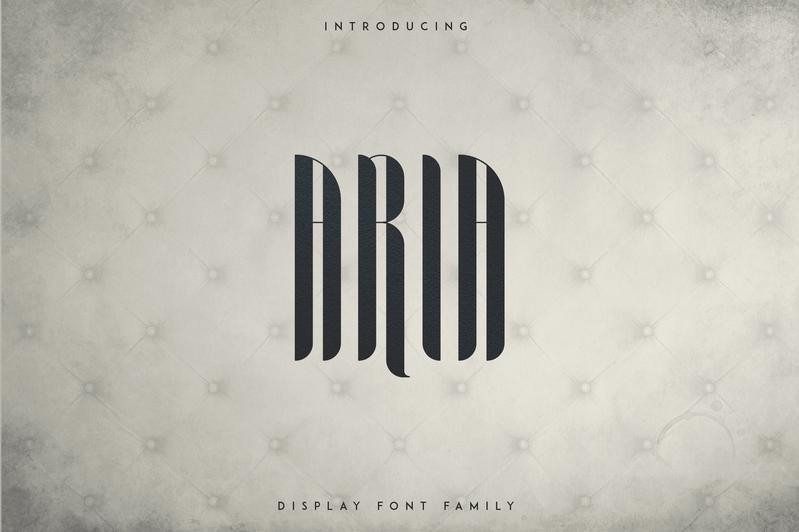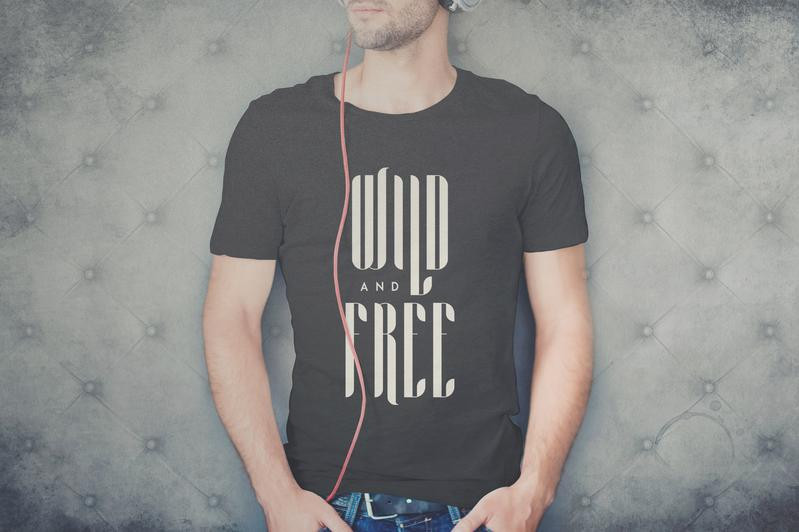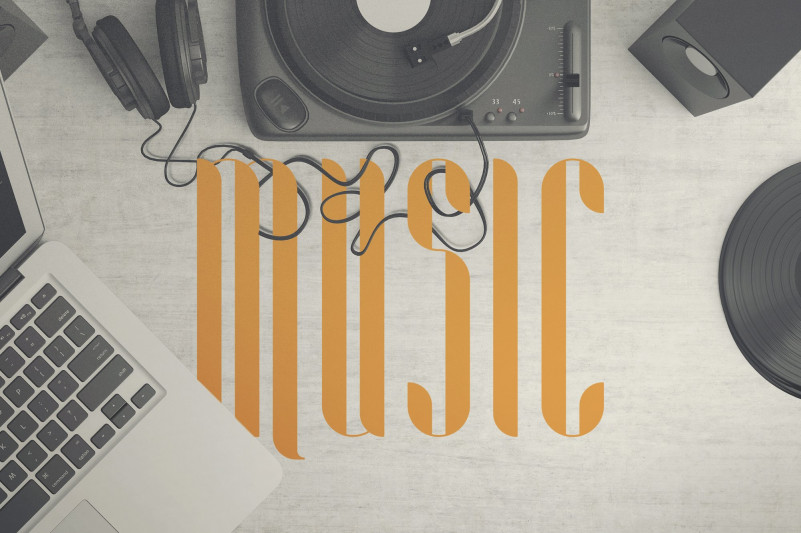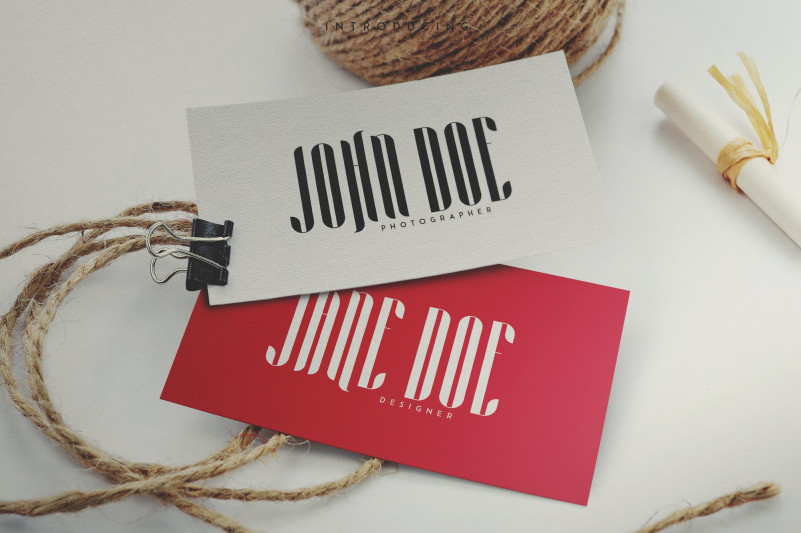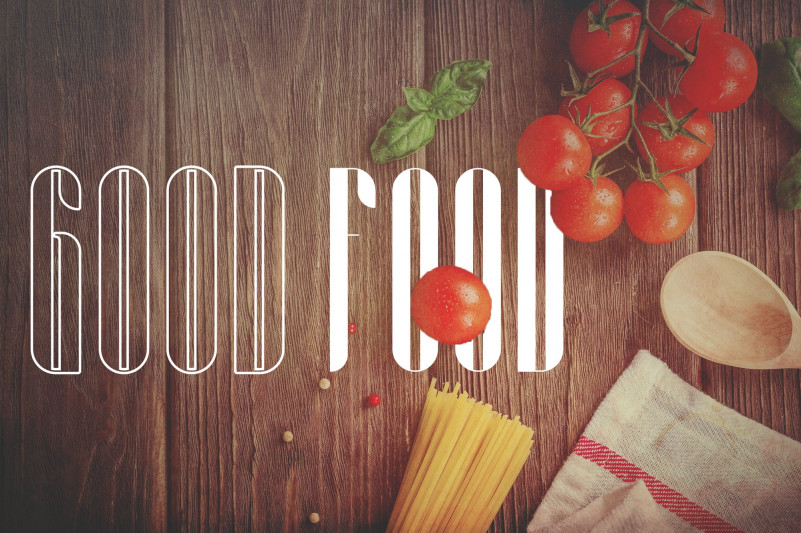
Aria Display Font Family is long, elegant display typeface with 4 fonts and multilingual support. It’s a very versatile font that works great in large and small sizes.
Aria is perfect for branding projects, home-ware designs, product packaging, magazine headers – or simply as a stylish text overlay to any background image.
- Uppercase,lowercase,numeral,punctuation & Symbol
- Multilingual
- Regular
- Bold
- Outline
- OutlineTwo